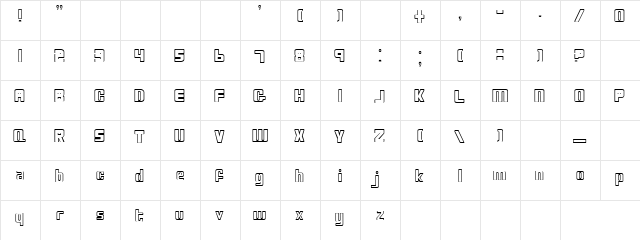
Random Hollow Regular
Design Context for Random Hollow Typeface
Random Hollow takes a measured approach to typography — its balanced proportions and neutral character make it a reliable workhorse for both digital and print work.